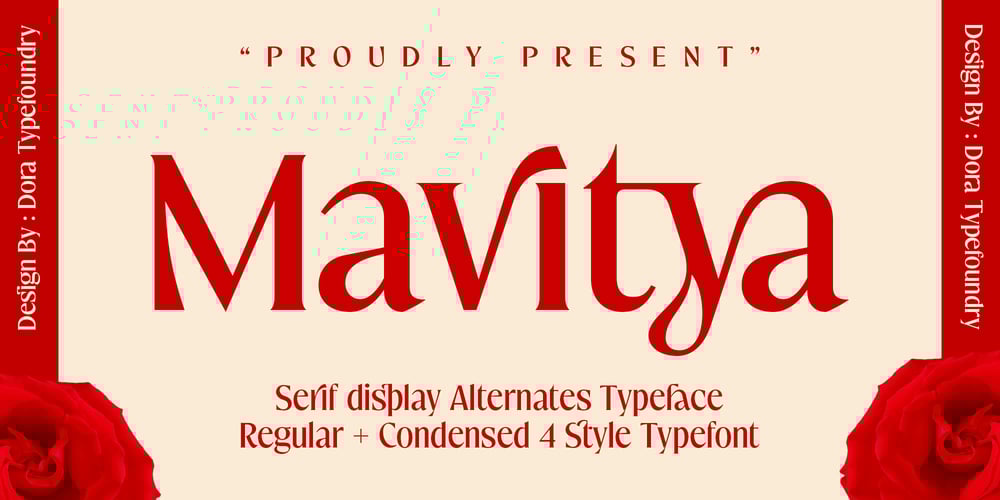
Mavitya Font Family was designed by Zahratul Laila and published by Dora Typefoundry. Mavitya contains 4 styles and family package options. Mavitya is a serif font with a classic but modern style with smooth curves and beautiful binding, consisting of regular and condensed versions with four types. allowing for a very sophisticated and contemporary approach to typography and the unique look of the font it also features ligatures and multi-language support. This font is made perfect for application especially on logos, and many other formal forms Mavitya provides a distinct, creative and expressive message for your branding, advertising, packaging, headlines, magazines, websites and other large projects. Feature: – 4 Font Weights — Regular, Condensed – Numbers & Symbols – Supported Languages – Alternatives and Ligatures – PUA codedWhat’s included: – Mavitya Regular + Oblique – Mavitya Condensed + ObliqueWe strongly recommend using programs that support OpenType features and Glyphs panels such as Adobe and Corel Draw applications, so you can view and access all Glyph variations.Families like this have become a true labor of love, making it as easy and enjoyable as possible. I really hope you enjoy it!Thank you Enjoy the font and be creative 🙂